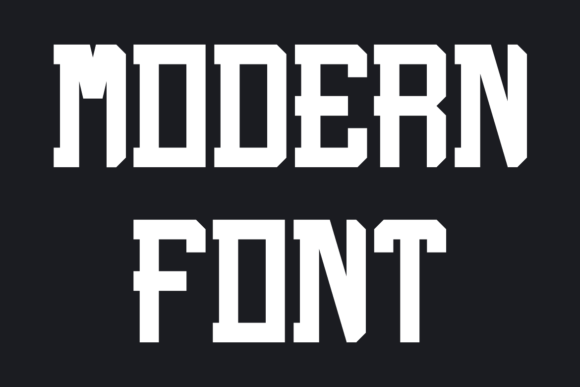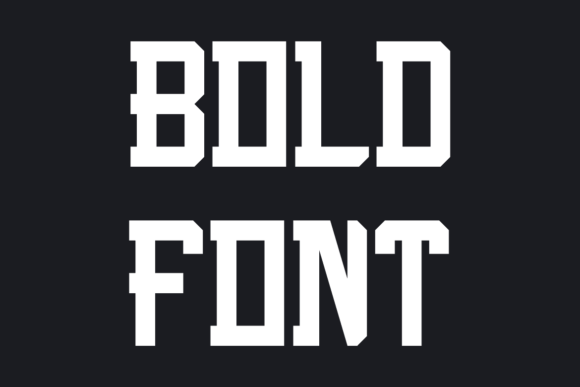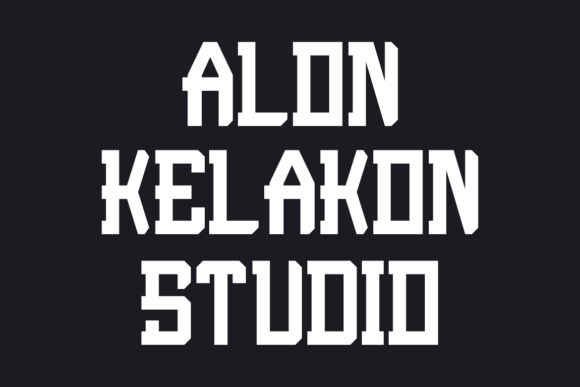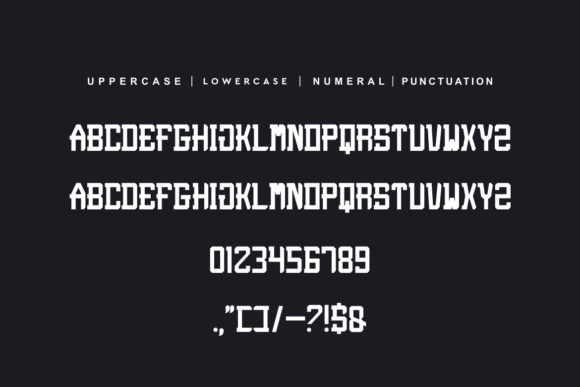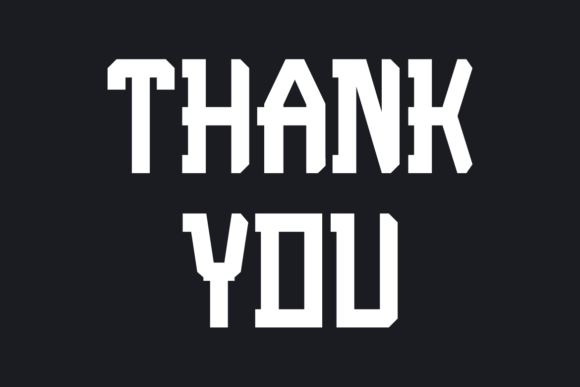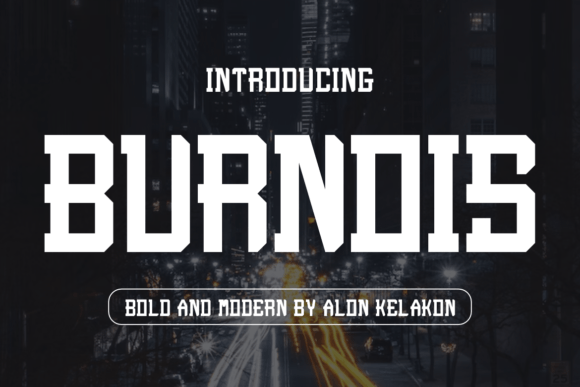
The Burnois Font: A Bold and Assertive Serif for Your Creative Projects
I still remember the frustration of working on a project, hours spent perfecting every detail, only to realize that the font I was using just wasn’t cutting it. The text looked dull, uninviting, and completely failed to capture the essence of the brand I was working with. It was then that I stumbled upon the Burnois font, and let me tell you, it was a game-changer! 💡
Burnois is a bold and assertive serif font that has quickly become a staple in my design toolkit. Its strong, confident lines make it perfect for use on business cards, social media, posters, flyers, web design, and so much more. In this article, I’ll share my honest review of the Burnois font, provide a practical guide on how to use it on various platforms, and explore some similar fonts that you might find useful.
My Honest Review of Burnois
• ✨ Bold and assertive: Burnois is not for the faint of heart. It’s a font that makes a statement and demands attention.
• ✅ Highly legible: Despite its bold nature, Burnois remains highly legible, even at smaller font sizes.
• 🌈 Versatile: This font can be used for a wide range of projects, from print materials to digital designs.
While Burnois is an excellent font, it’s not without its quirks. For instance:
• 🤔 Limited use for body text: Due to its bold nature, Burnois may not be the best choice for lengthy body text. It’s better suited for headings, titles, and short paragraphs.
The Story Behind Burnois
Burnois was designed by a team of typographers who wanted to create a font that would make a bold statement. Inspired by classic serif fonts, they experimented with different weights and styles to create a unique and assertive font. The result is a font that’s both elegant and attention-grabbing.
Font Name Burnois Font